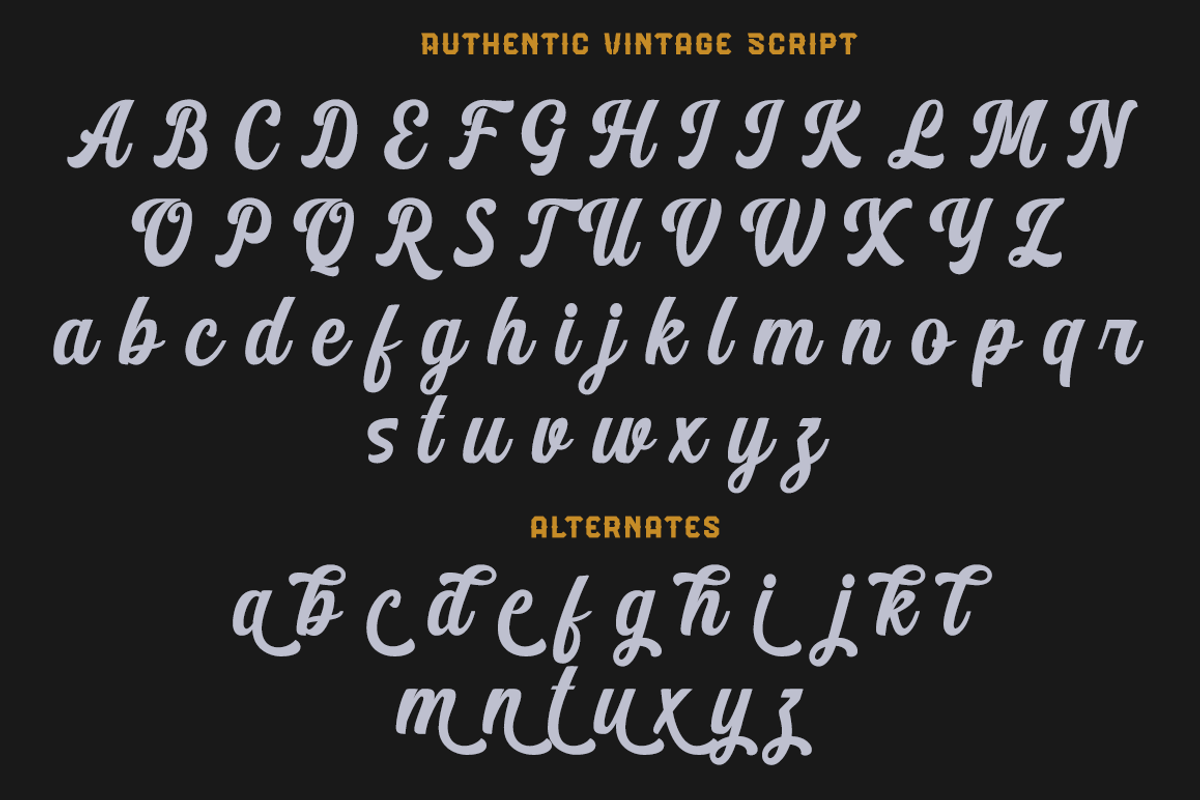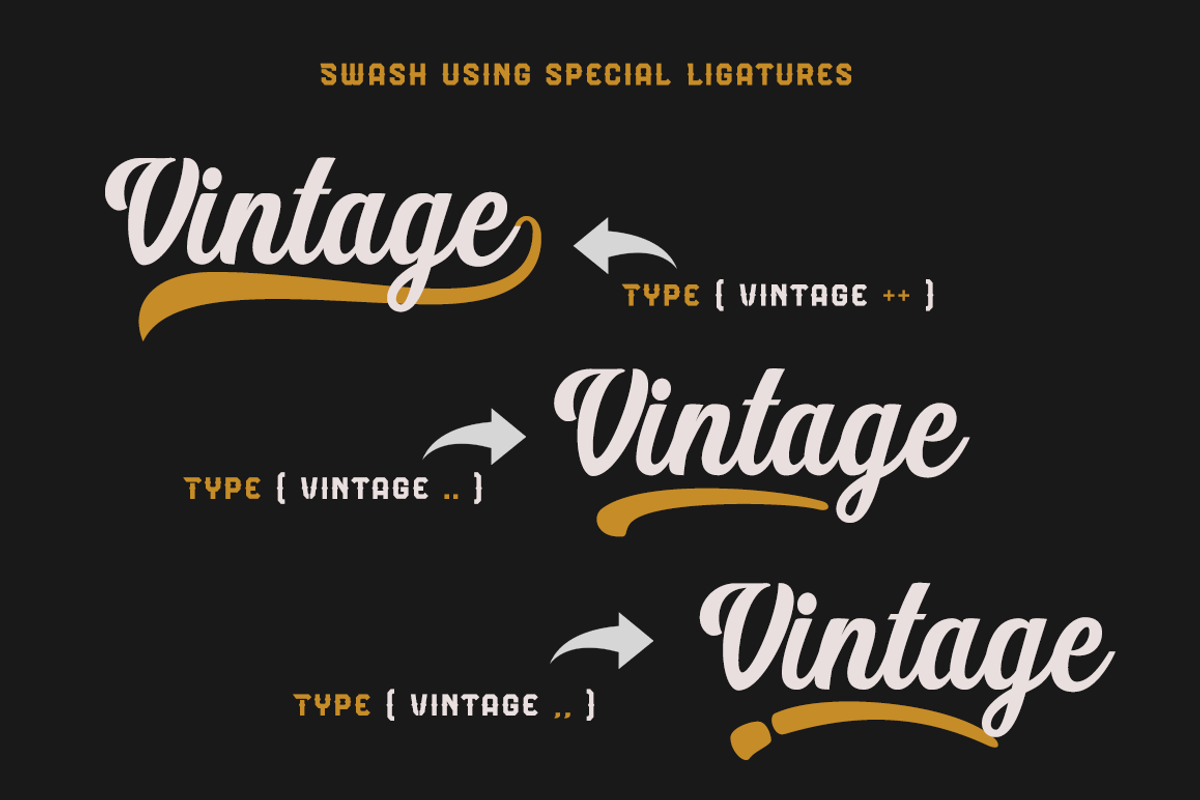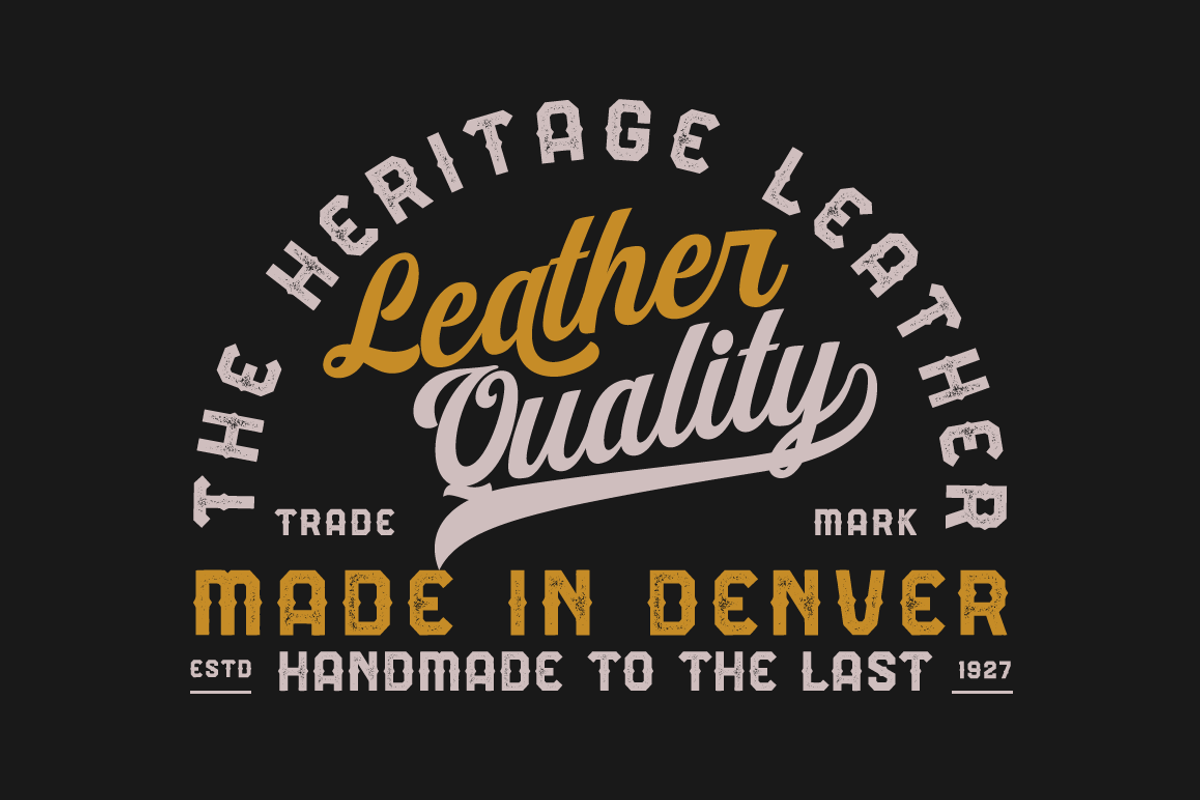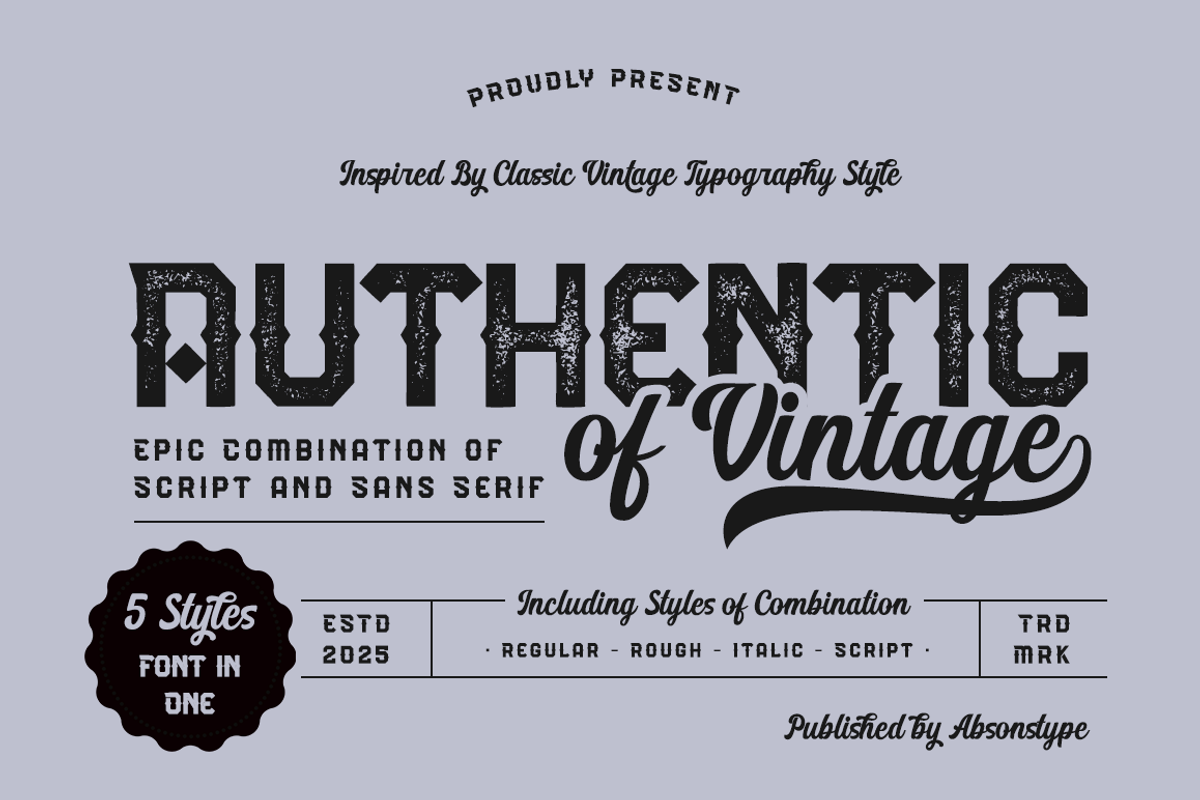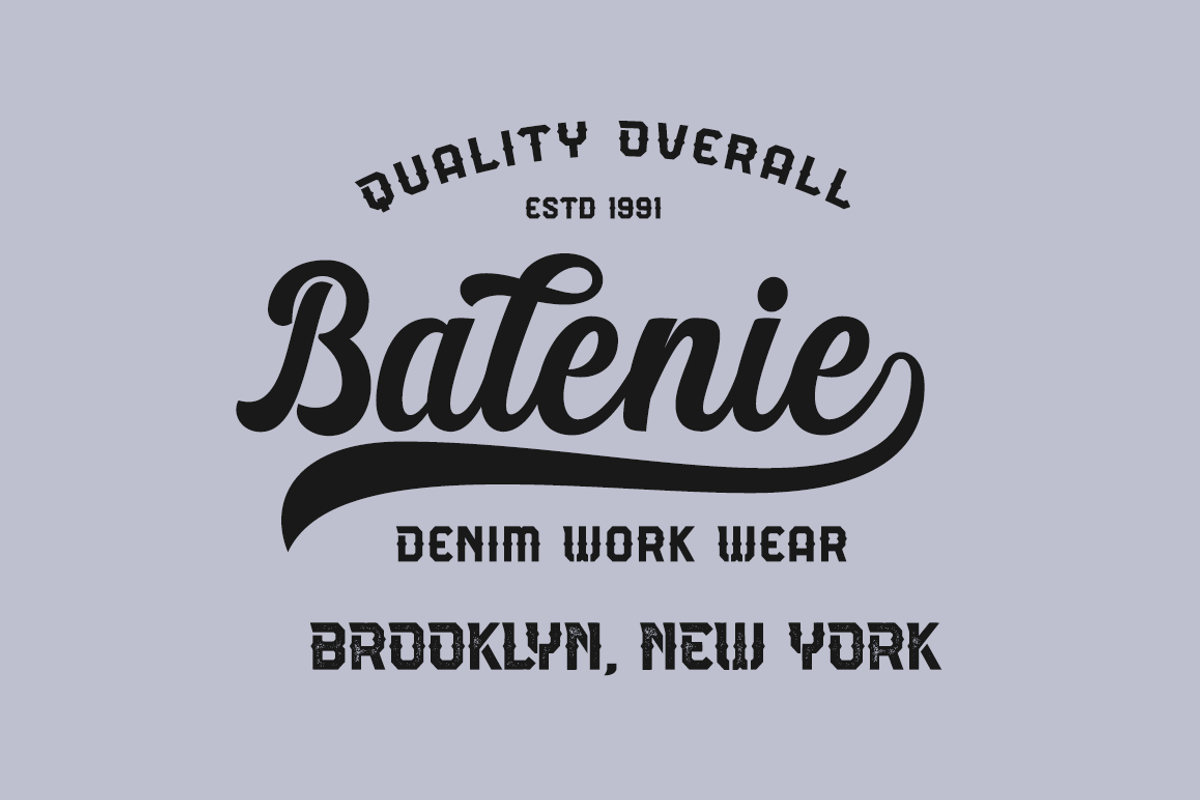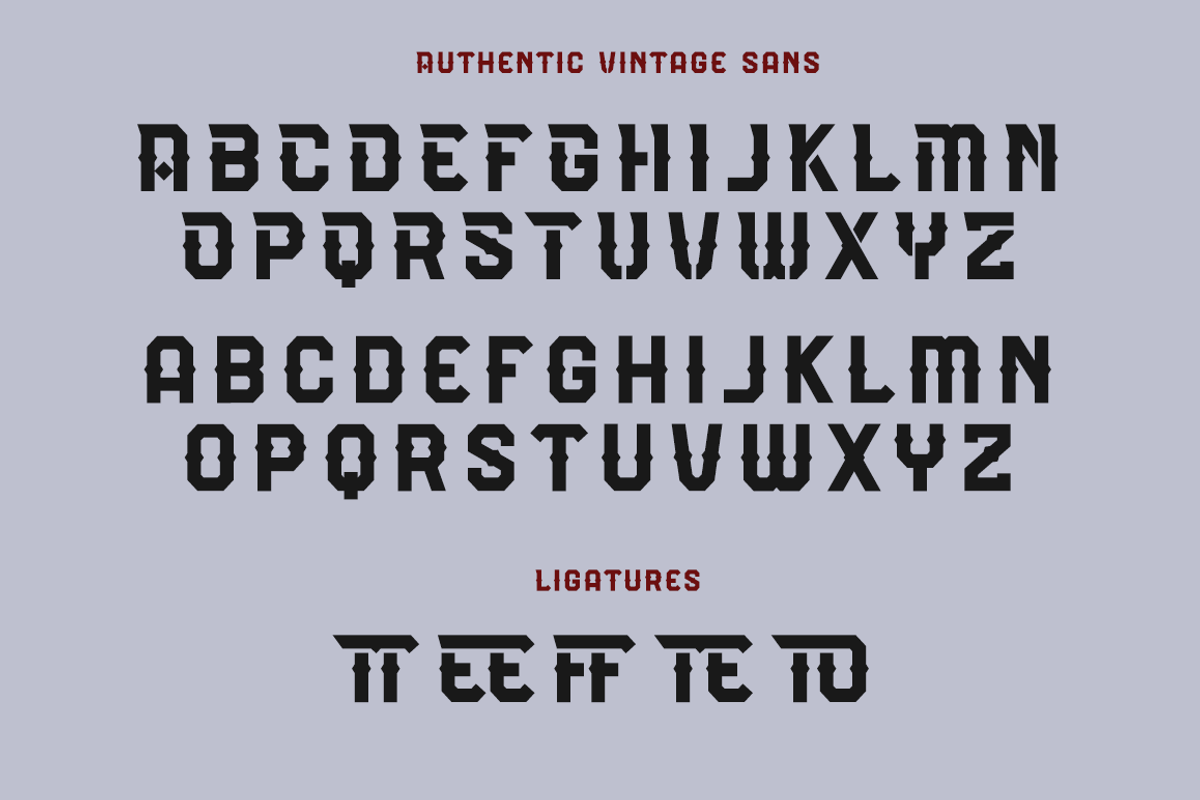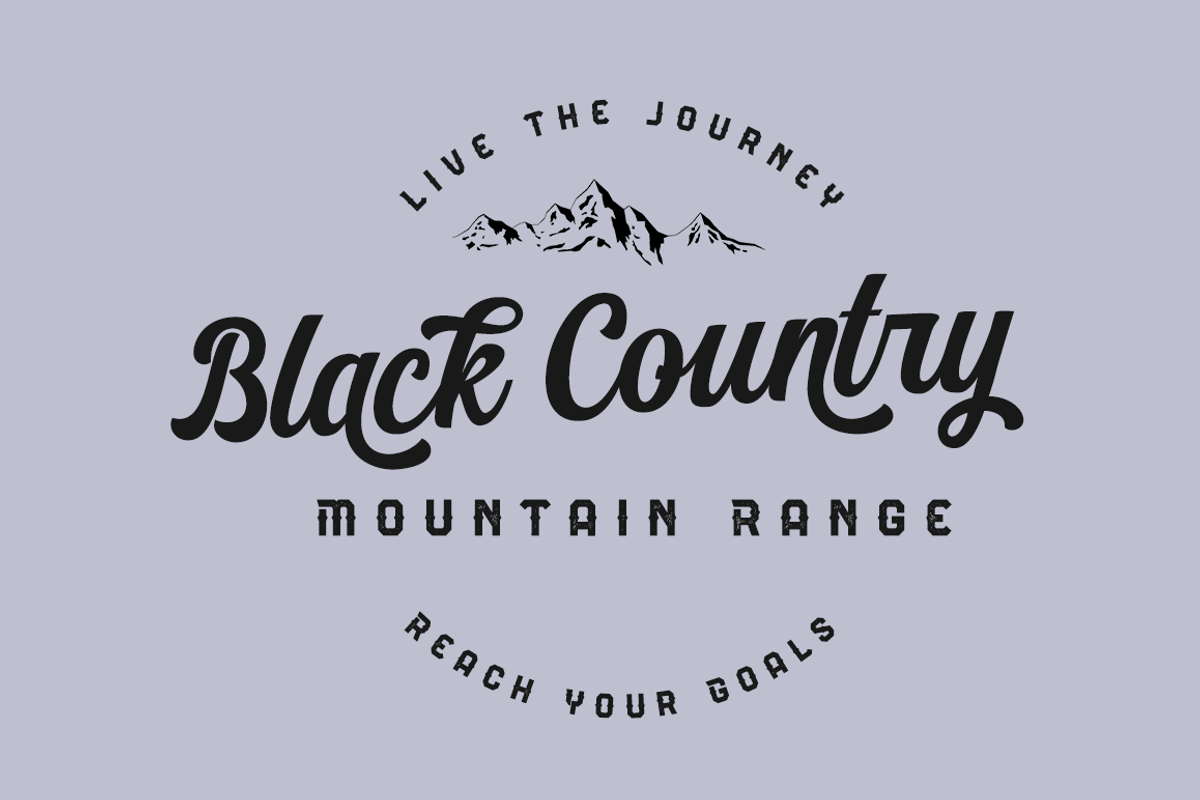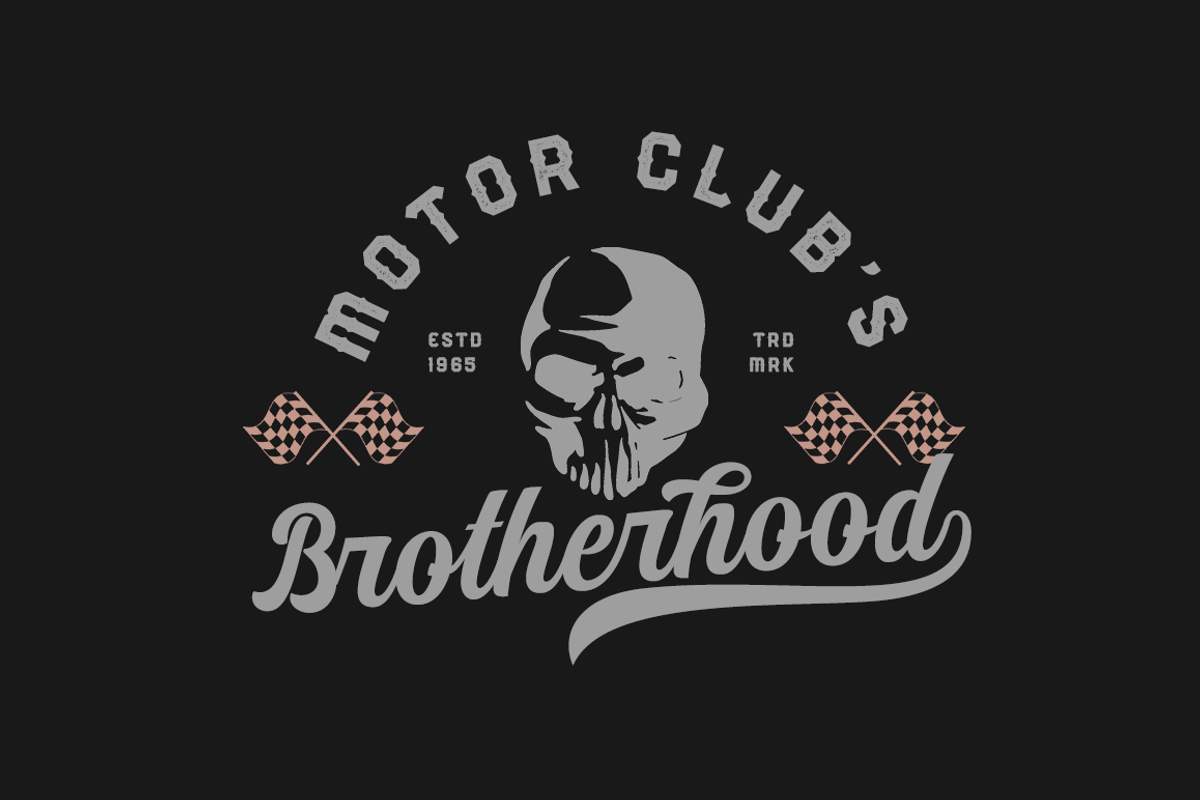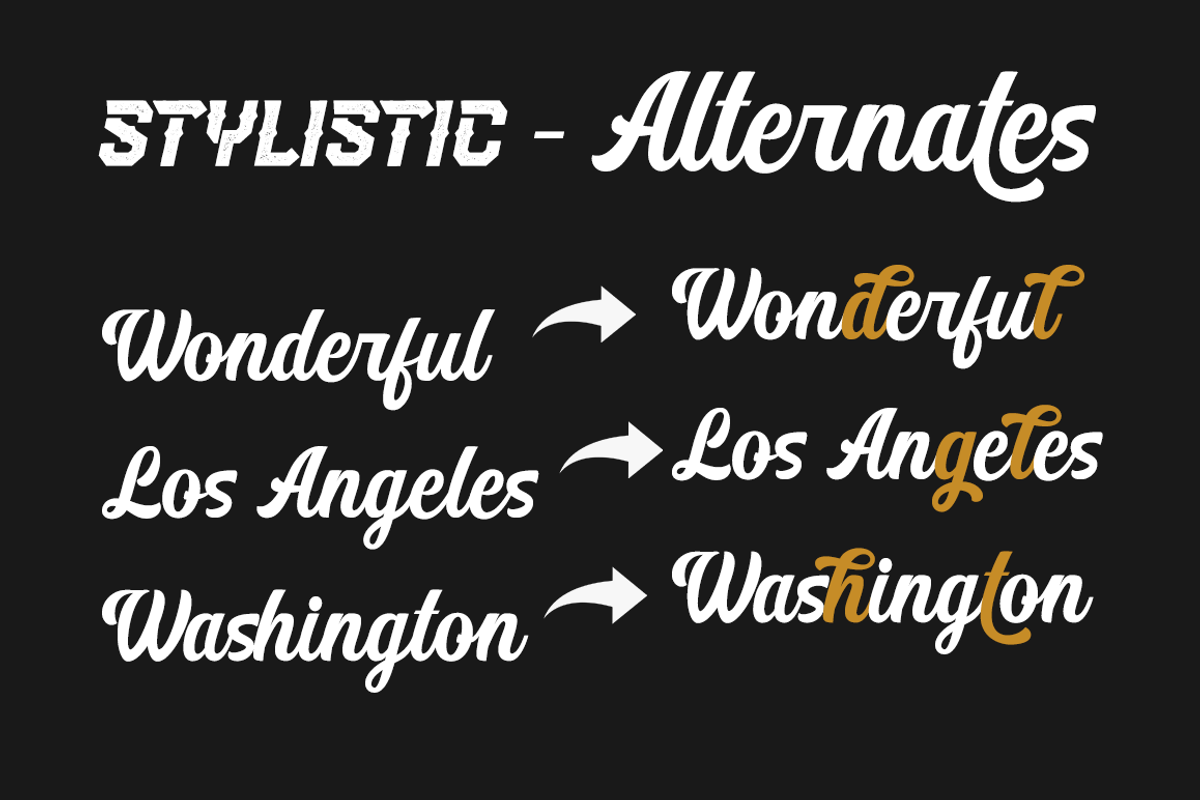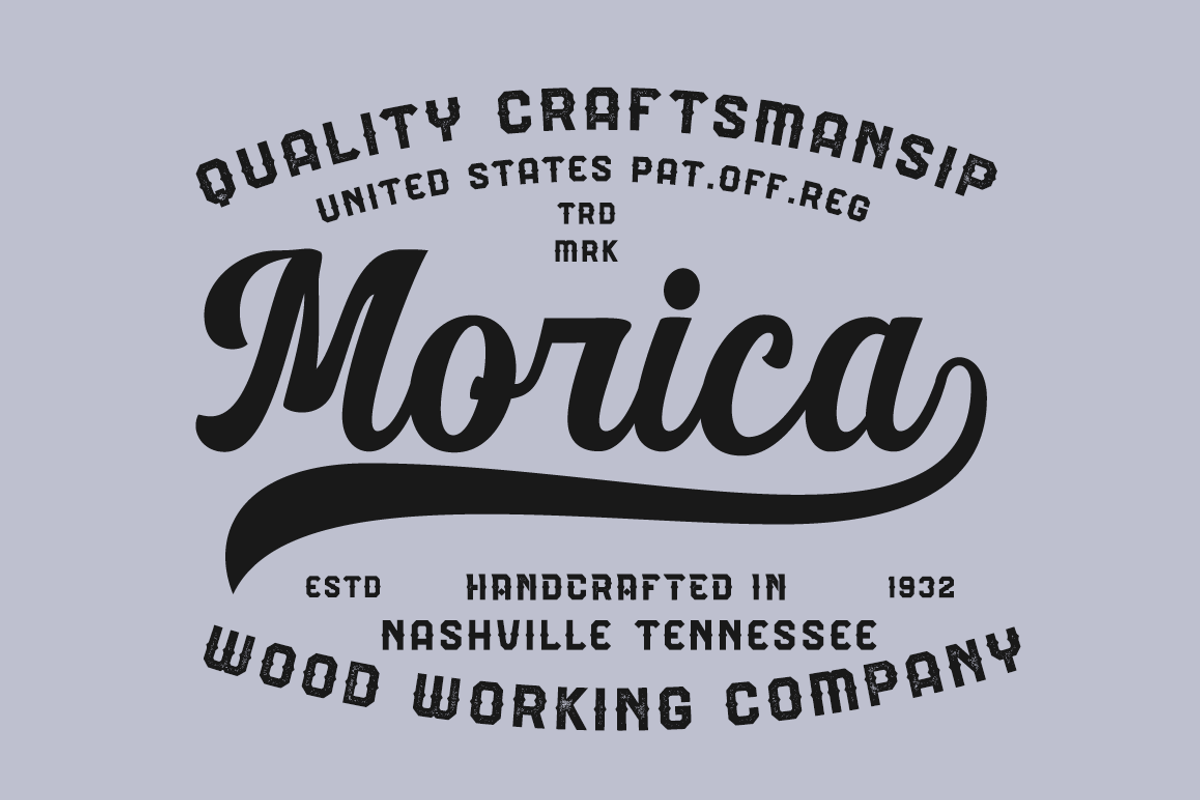
Authentic Vintage Sans & Script
Authentic of Vintage is a striking typeface inspired by classic vintage typography styles. This font offers a bold and nostalgic character that combines the strength of sans serif with the elegance of script. Perfectly suited for retro-themed designs, branding, packaging, and logos, this font brings an authentic vintage feel to any creative project.
This typeface delivers a unique visual experience through its rugged sans serif form and stylish script strokes, making it ideal for designs that seek personality, character, and timeless appeal.
- 5 Font Styles in One Package : Includes Regular, Rough, Italic, Script, and a combination style.
- Epic Script & Sans Serif Combo : Seamlessly merges strong sans serif letters with smooth vintage script for versatile design.
- Inspired by Classic Typography: Reflects the charm of early 20th-century lettering for a nostalgic touch.
- High-Quality Detailing : Each character is carefully designed for visual impact and legibility.
- Perfect for Vintage-Themed Projects : Ideal for posters, logos, packaging, signage, and apparel that require a retro aesthetic.
- Highly Versatile : With 5 different styles, you have multiple options for headings, body text, and logo variations.
- Time-Saving Combo Set : You don’t need to pair fonts manually—this typeface gives you a ready-made combination.
- Strong Brand Personality : Adds authenticity and character to your branding or promotional materials.
- Creative Flexibility : The combination of script and sans serif enables dynamic layout possibilities.